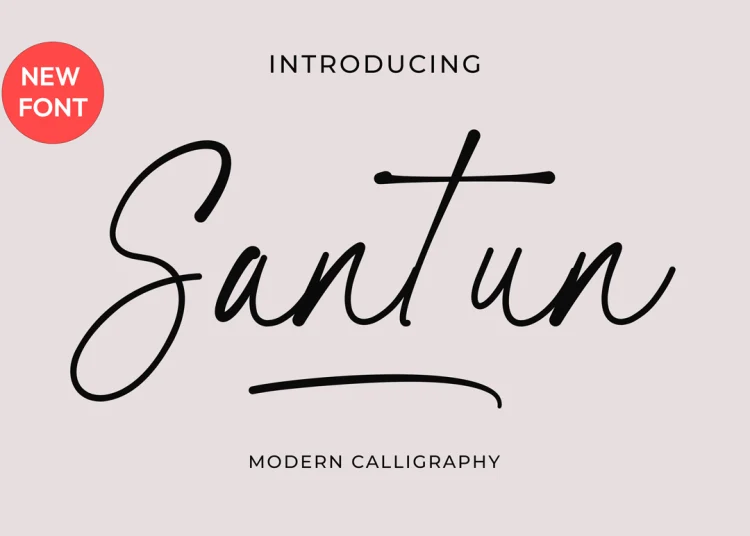
Santun Font
Santun is an exquisite script-style calligraphy font that stands out with its stunning design and precise execution. Whether you’re working on invitations, branding, or any creative project that calls for an elegant touch, Santun brings a refined and graceful aesthetic that enhances the overall look and feel of your design.
This font is PUA encoded, making it easy to access all glyphs and swashes, allowing you to fully customize your text with beautiful, flowing script elements.